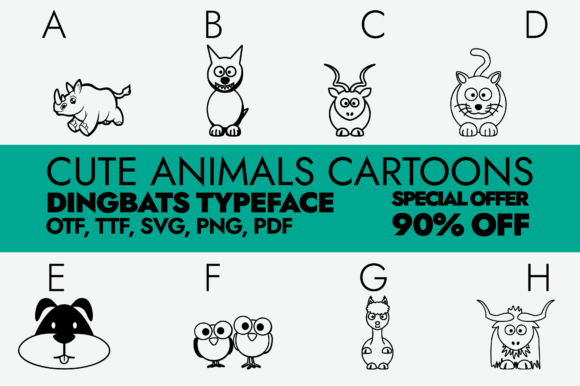
Introducing Cute Animals Cartoons Font - The Whimsical and Delightful Dingbats Font That Will Bring Your Designs to Life!
Embrace the charm and playfulness of Cute Animals Cartoons Font, a captivating dingbats font family designed to inject an irresistible touch of joy and wonder into your creative projects.
Crafted by the talented artists at Minimalistartstudio, this font family is a whimsical playground filled with an array of adorable animal characters, each one bursting with personality and charm. From mischievous monkeys and cuddly bears to playful penguins and elegant unicorns, Cute Animals Cartoons Font has it all.
Dive into a world where imagination reigns supreme, and let your designs take flight with this enchanting font. Whether you're creating cheerful children's products, captivating marketing materials, or simply adding a touch of whimsy to your personal projects, Cute Animals Cartoons Font is your perfect companion.
Step into a world where creativity blooms, and transform your designs into captivating works of art. Let Cute Animals Cartoons Font be your guide on this delightful journey, and experience the magic unfold before your eyes.